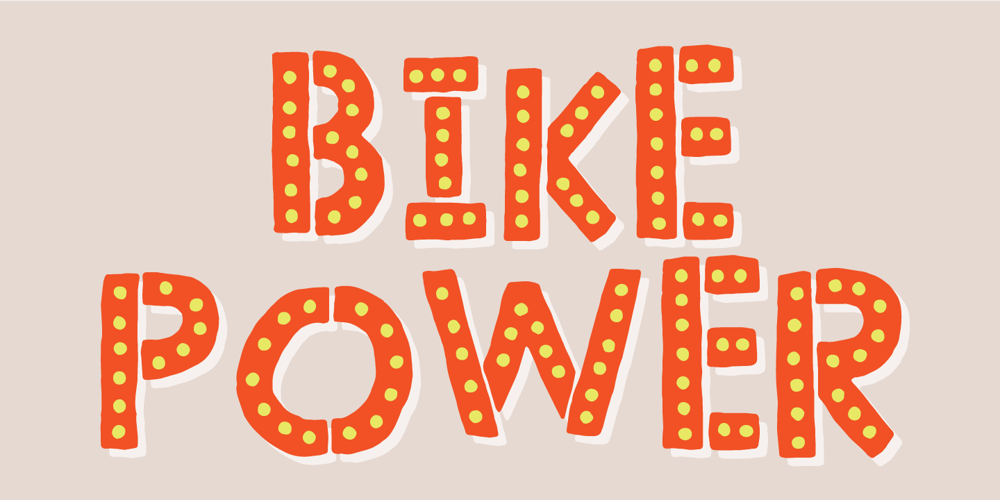
Bike Power
Bike Power font
Bike Power Font Family was designed by Jakob Fischer and published by PizzaDude.dk. Bike Power contains 3 styles and family package options. I love my bike, and I couldn’t dream of not using it on a daily basis – I use my bike in rain, sun, snow, and windy days…all year, in other words!This font is dedicated to my bike, and is the first in a series of handmade fonts!Play around with the three layers and your favourite colours, for awesome effects. All versions comes with Contextual Alternates, which means several versions of each letter. In this case, every letter has 5 different versions that automatically cycles as you type! A quite awesome thing, because it makes your text more lively and natural looking!